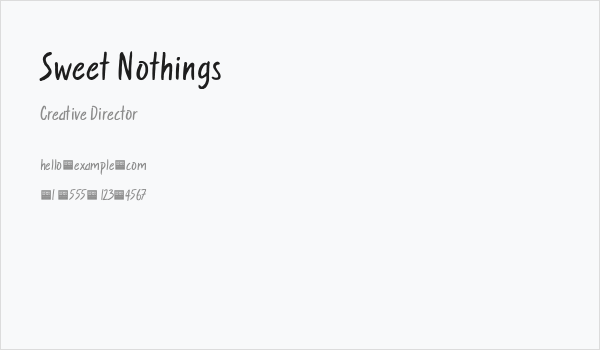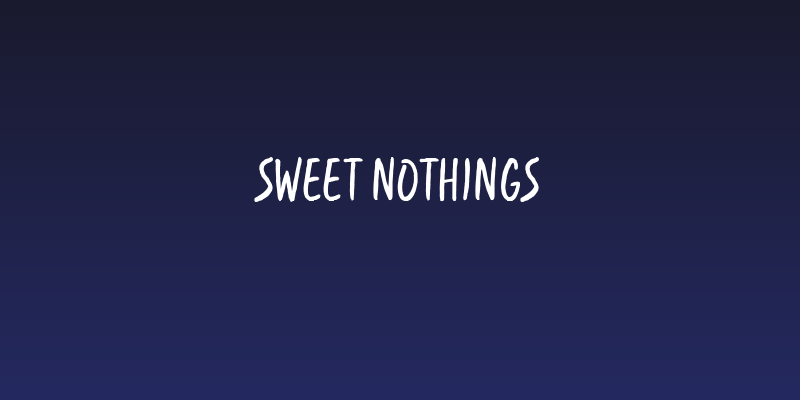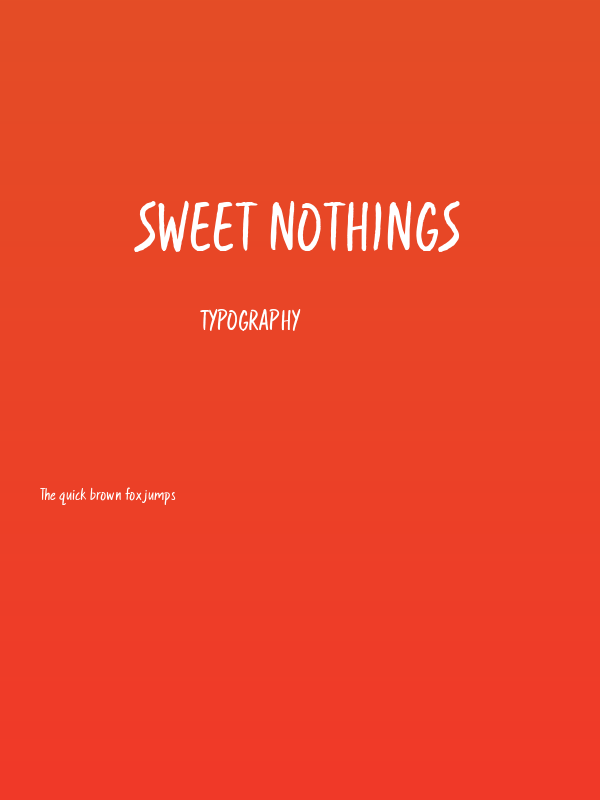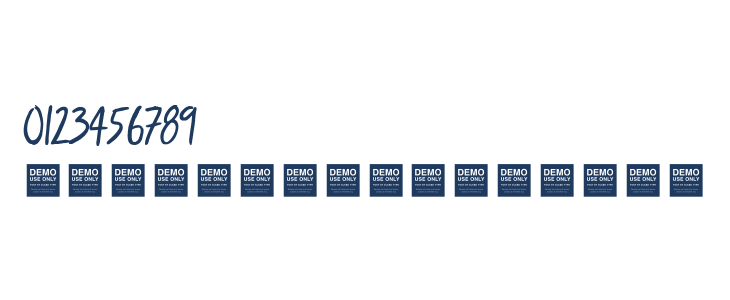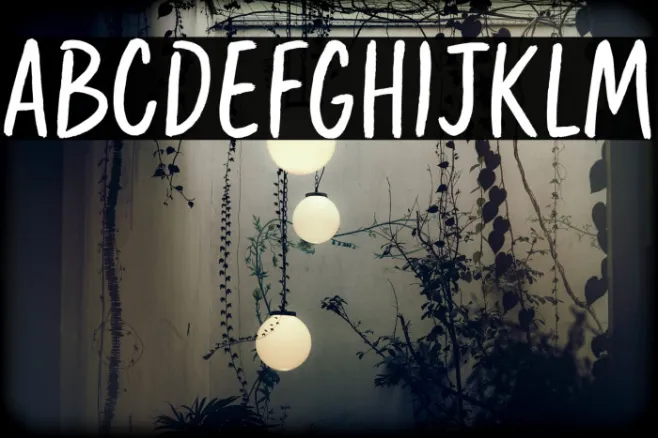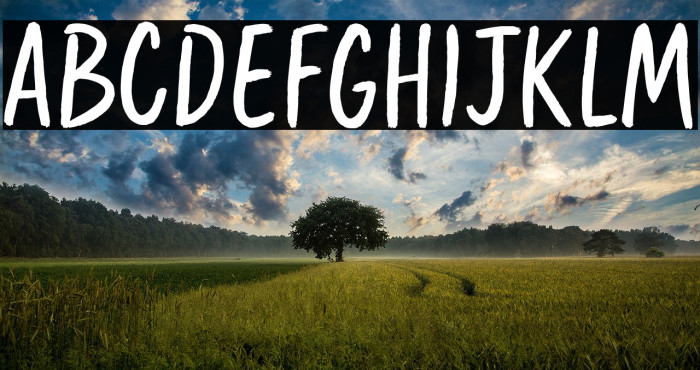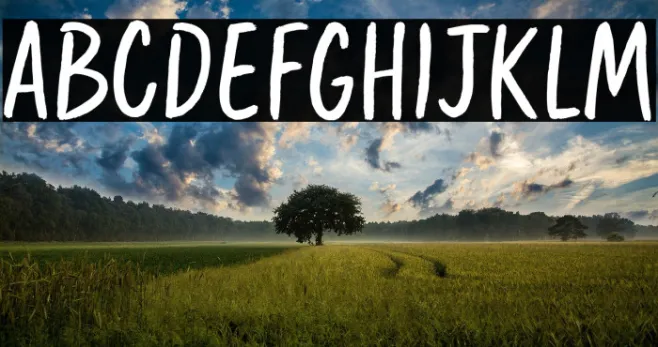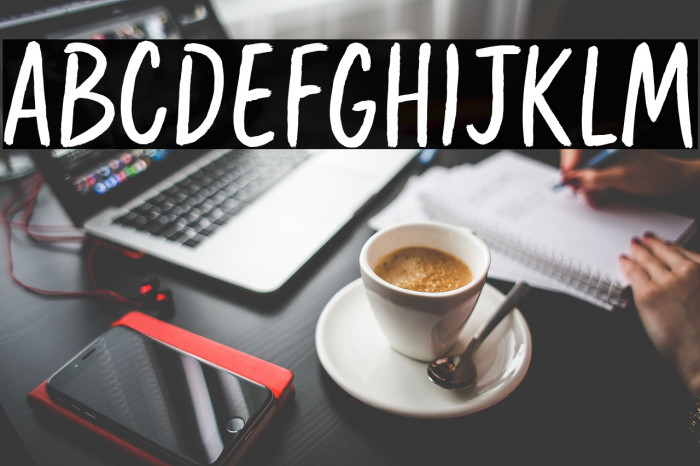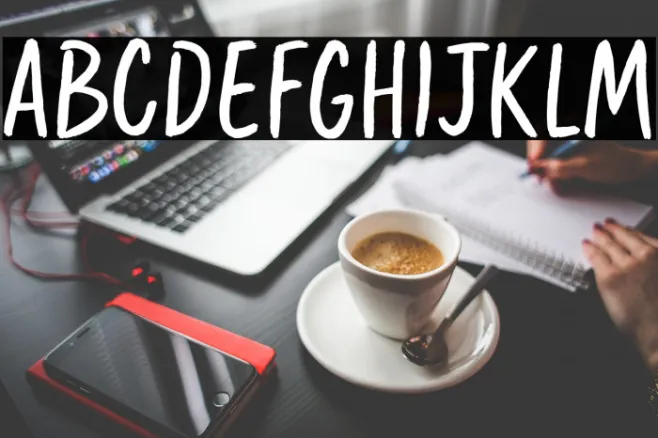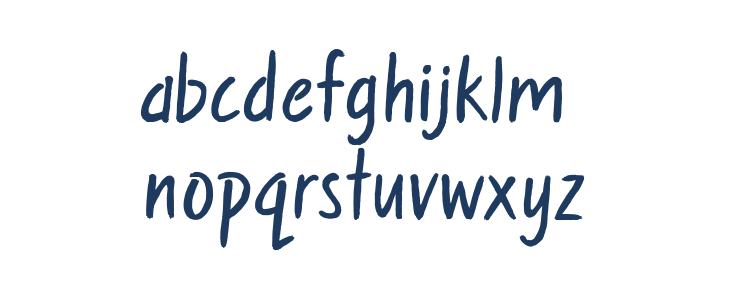
Sweet Nothings Font
Sweet Nothings Description
This font exudes a playful and casual handwritten style, characterized by its fluid and slightly irregular strokes that mimic natural handwriting. The letters have a lively and dynamic appearance, with varying stroke widths that add a sense of movement and personality. The uppercase and lowercase letters are distinct yet harmonious, maintaining a consistent flow throughout. The numerals and special characters follow the same energetic style, making the font versatile for various creative applications. Its informal and approachable look makes it ideal for projects that require a personal touch.
| Use Case | Logos, Headlines, Greeting cards |
| Proposed Projects | Ideal for greeting cards, invitations, personal branding, and social media graphics. |